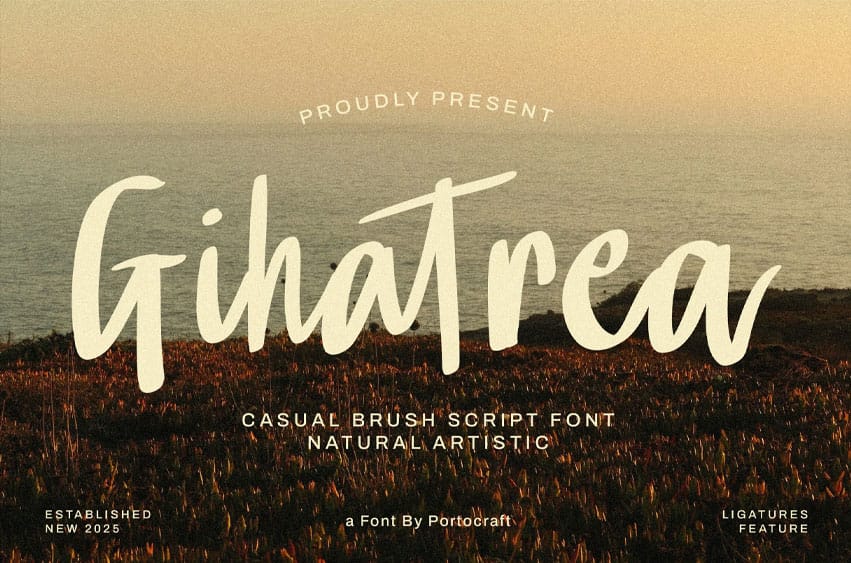
Gihatrea Font is a casual brush script font with a natural artistic touch. Its bold strokes and authentic hand-brushed style bring an organic, creative, and modern vibe to your projects.
Perfect for branding, poster design, social media graphics, packaging, quotes, and creative headlines, Gihatrea adds a raw yet stylish personality that feels both energetic and approachable.
With its ligature feature and natural brush texture, this font captures the essence of handcrafted artistry—ideal for designers who want to showcase authenticity and creativity in their work.
- Unique Letterforms